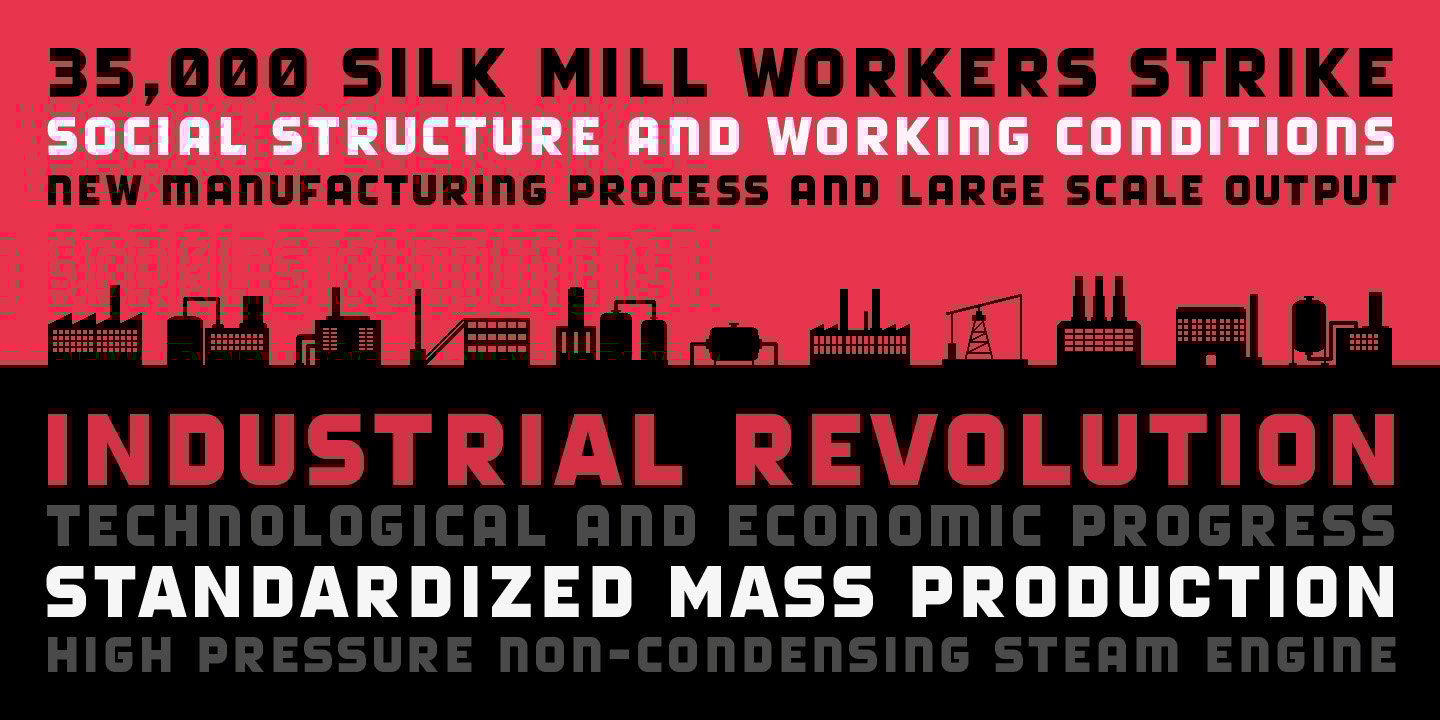
The Borgstrand Pro Font is an excellent choice for designs that demand a modern, clean, and highly versatile sans-serif aesthetic, optimized for exceptional clarity and broad application. Imagine it providing crisp, elegant text for sophisticated corporate branding, adding a refined and professional feel to high-tech product interfaces, or bringing a minimalist yet impactful vibe to editorial layouts in contemporary magazines. It's also perfectly suited for sleek mobile app design, comprehensive annual reports, and any project where you want to convey innovation, precision, and timeless design. With its balanced proportions and meticulously crafted forms, the Borgstrand Pro Font is ideal for projects that aim for visual polish and functional excellence.
What makes the Borgstrand Pro Font truly exciting is its remarkable ability to perform across a vast array of applications while maintaining a consistently high level of readability and aesthetic appeal. It's designed for supreme legibility even at small sizes and on diverse screens, making it a reliable workhorse for both print and digital media. This font strikes an optimal balance between being unobtrusive for body text and having enough character to make headlines pop with modern sophistication. It injects a sense of professionalism and cutting-edge design into your projects, making it a go-to choice for establishing a credible and contemporary brand presence. The Borgstrand Pro Font Free Download offers a fantastic opportunity to experience this typeface's versatile capabilities.
The Borgstrand Pro Font family is typically designed to offer a comprehensive range of weights and styles, maximizing its adaptability for diverse design requirements. As a "Pro" font, it often includes advanced typographic features. While specific family members can vary, you can typically expect to find:
• Borgstrand Pro Thin
• Borgstrand Pro Light
• Borgstrand Pro Regular
• Borgstrand Pro Medium
• Borgstrand Pro SemiBold
• Borgstrand Pro Bold
• Borgstrand Pro Black
• Borgstrand Pro Italic (or Oblique versions for various weights)
• Extended Language Support (including a wide range of Latin-based languages)
• OpenType Features (such as ligatures, alternate characters, small caps, and numeral variations for enhanced typographic control)
These extensive variations provide designers with ample flexibility to create intricate visual hierarchies, from delicate accents to impactful headlines, ensuring optimal performance across a wide array of applications while maintaining the font's signature clear and contemporary appearance.